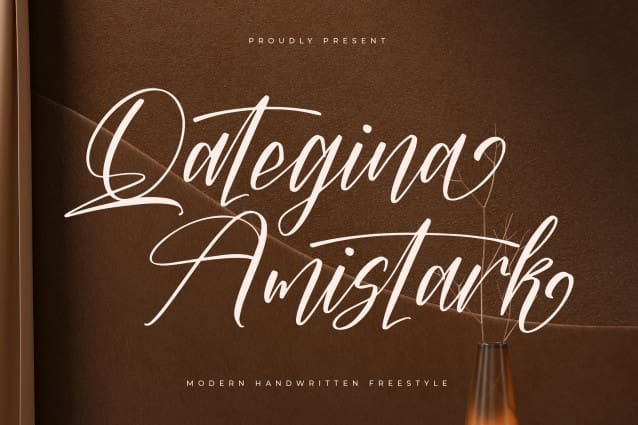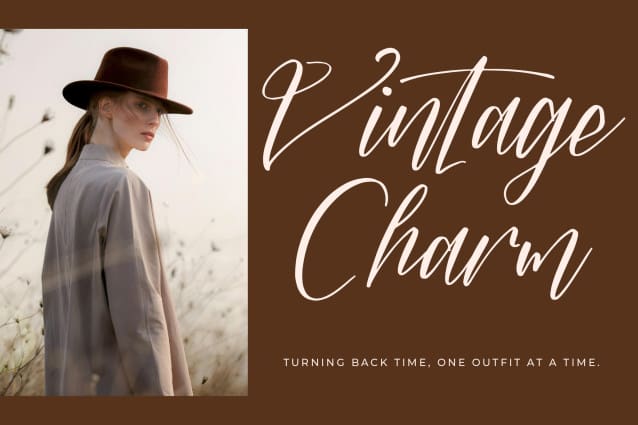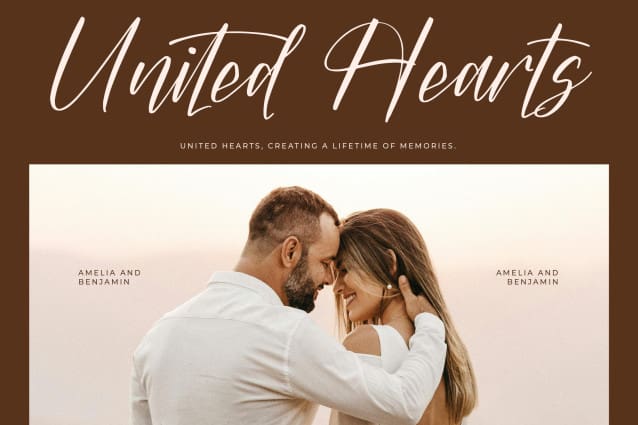
Qategina Amistark Font
Qategina Amistark Font – Modern Handwritten Freestyle , from Letterena, is a Luxury Script font, suitable for any projects such as: logos, branding projects, homeware designs, product packaging, mugs, quotes, posters, shopping bags, t-shirts, book covers, name card, invitation cards, greeting cards, label, photography, watermark, special events, and all your other luxury and beautiful projects that need a Luxury Script taste.